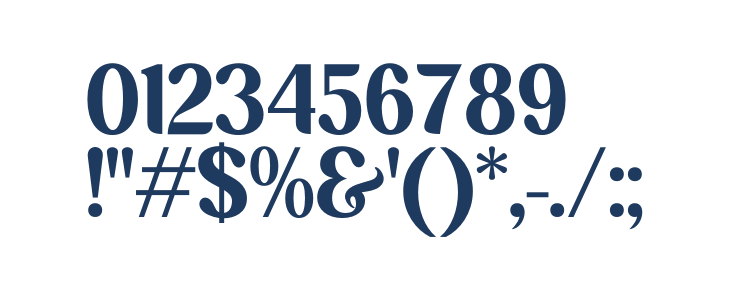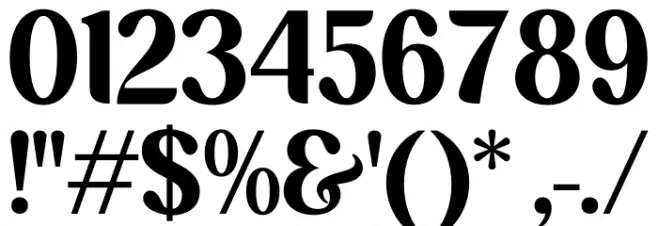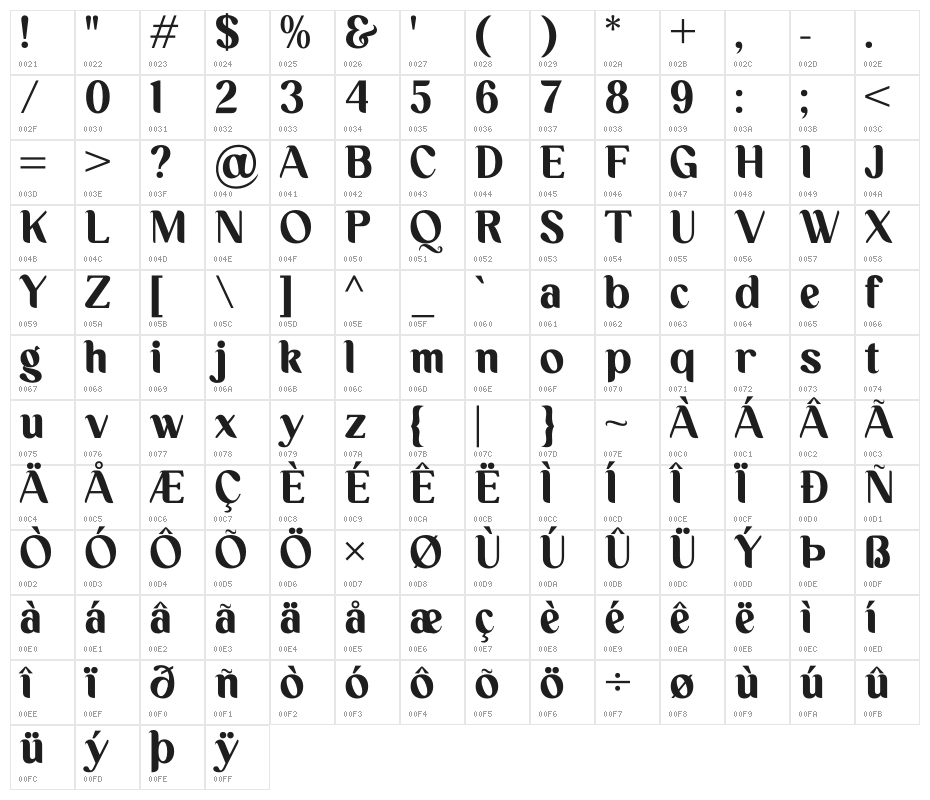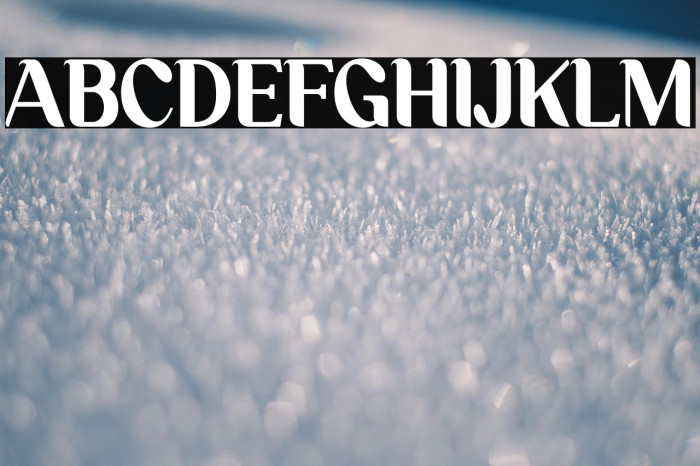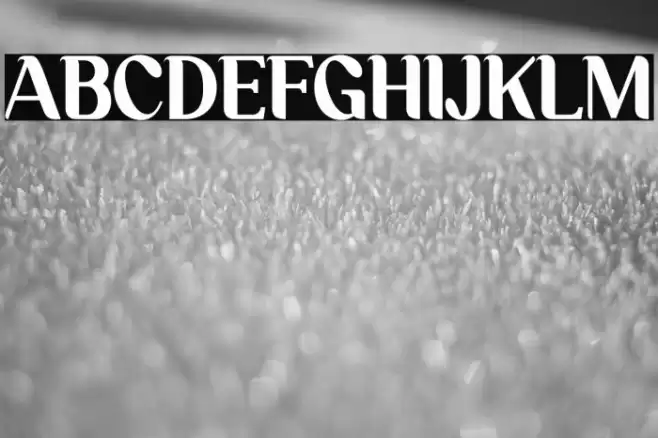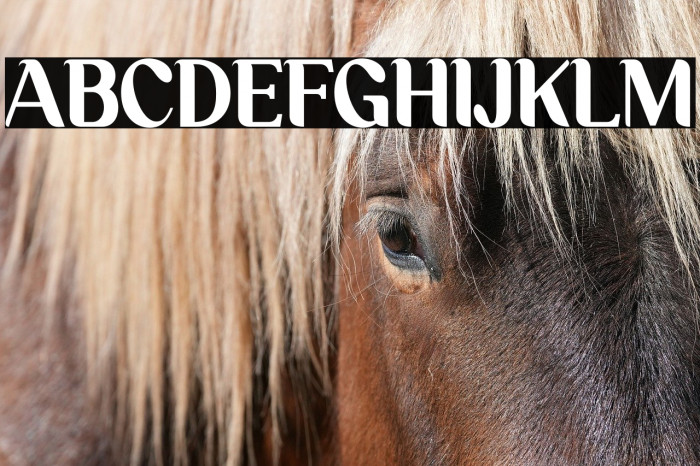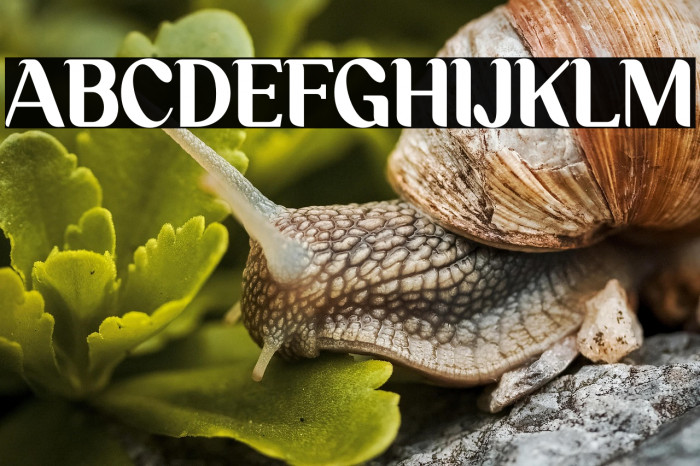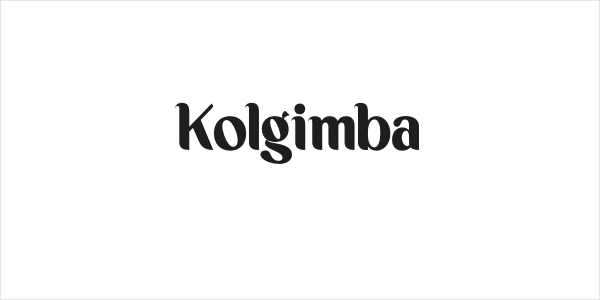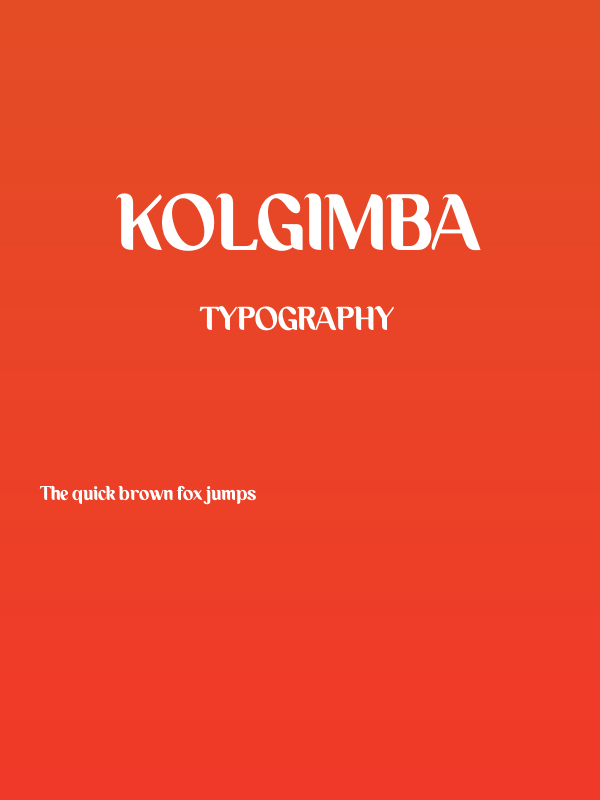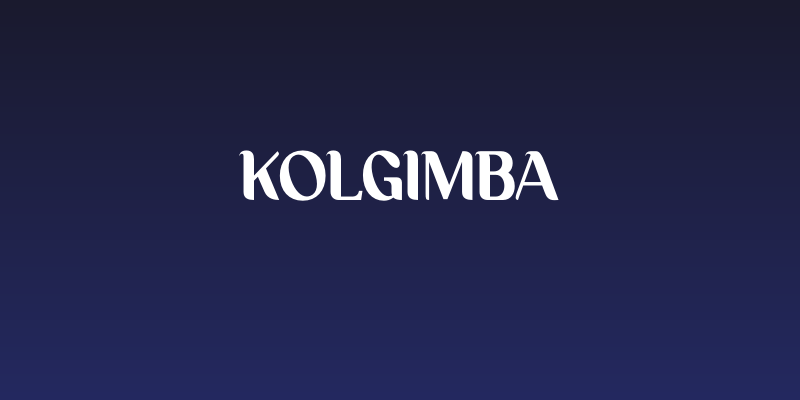
Kolgimba Font
Kolgimba Description
This font features a bold and expressive style with a strong presence. The characters are designed with a high contrast between thick and thin strokes, giving it a dynamic and eye-catching appearance. The uppercase letters are particularly striking, with unique curves and angles that add a touch of elegance and sophistication. The lowercase letters maintain a consistent style, offering a harmonious blend with the uppercase set. The numerals are bold and clear, ensuring readability. Special characters are creatively designed, adding to the font's overall charm. This font is perfect for making a statement in any design project.